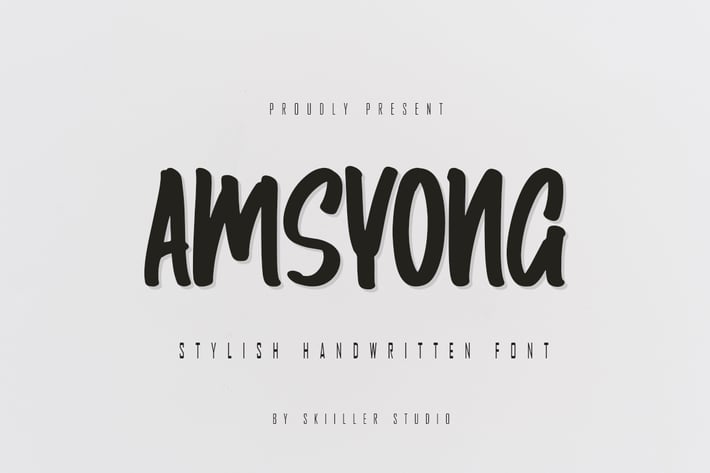
Amsyong - Stylish Handwritten Font
Amsyong is a playful and cool lovely font. This font is perfect for children themed designs, especially when combined with bright colors.
+ Basic Latin Language Support (AÀÁÂÃÄÅCÇDÐEÈÉÊËIÌÍÎÏÑOØÒÓÔÕÖUÙÜÚÛWYÝŸÆß )